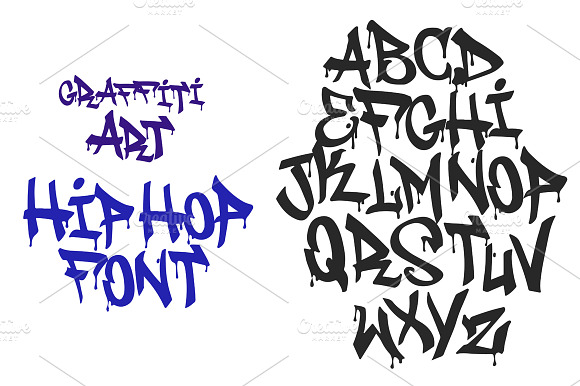
Graffiti black tag vector font
- GraffitiVandals Regular
Graffiti black tag vector font by AntonyChernianu fits naturally into Branding, posters, packaging, typography.